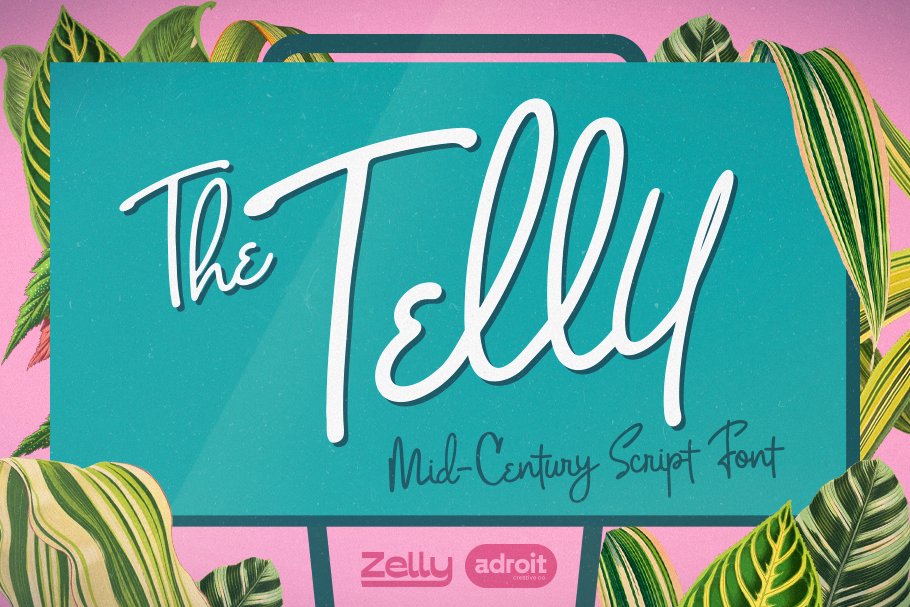
About the Telly Mid Century Script Font
Telly is an elegant, casual and upright script font with clean strokes and fun character, Telly is perfect for logos, badges, posters, typography and any retro design and retro display type needs, If you have any questions don’t hesitate to ask and leave feedback or a comment, Thanks!Features:1 Font (Regular)Uppercase & LowercaseNumbers & PunctuationAlternates & Ligatures